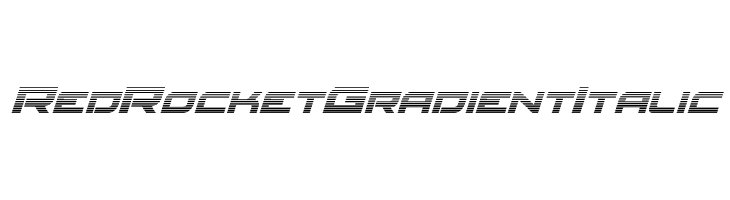
A bold, italic stencil-style font with sharp, angular cuts.
A bold, high-contrast serif font with modern elegance.
A whimsical and decorative font with gothic and cartoon influences, featuring bold strokes and intricate details.
A playful and energetic handwritten script font with a casual and friendly style.
A fluid, handwritten script font with a casual and elegant style.
A playful, handwritten font with a whimsical and dynamic style.
A bold, geometric font with sharp angles and a modern, industrial feel.
An elegant, cursive font with a fluid, handwritten style.
A lively and expressive handwritten font with dynamic strokes.
A playful, handwritten font with smooth, flowing curves and a casual style.